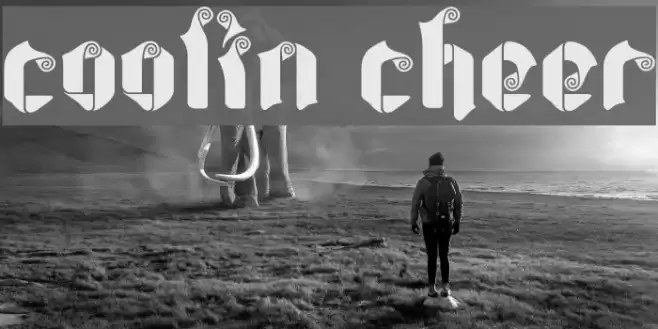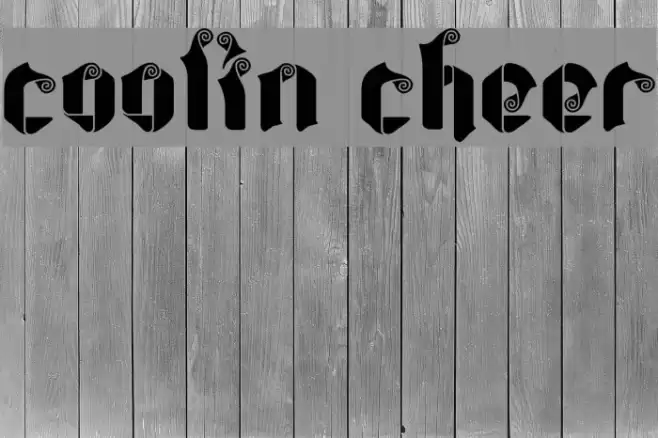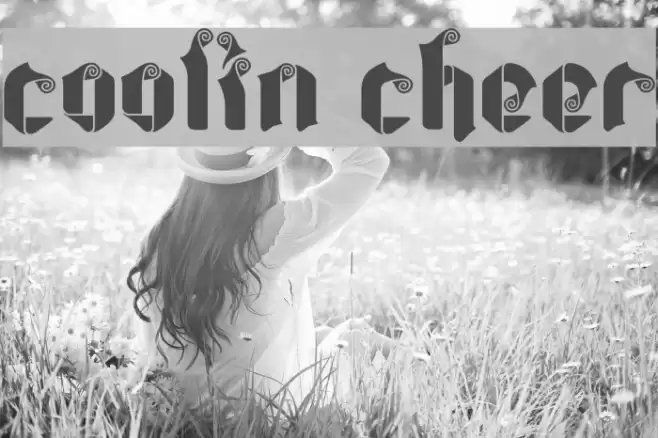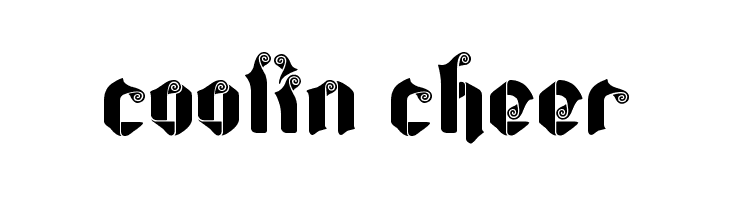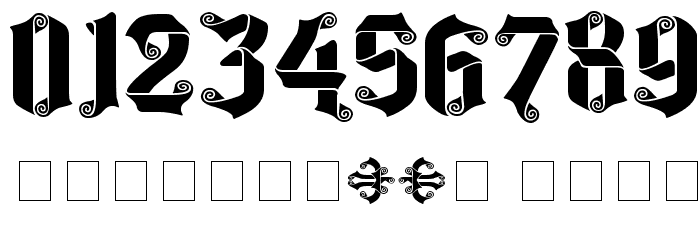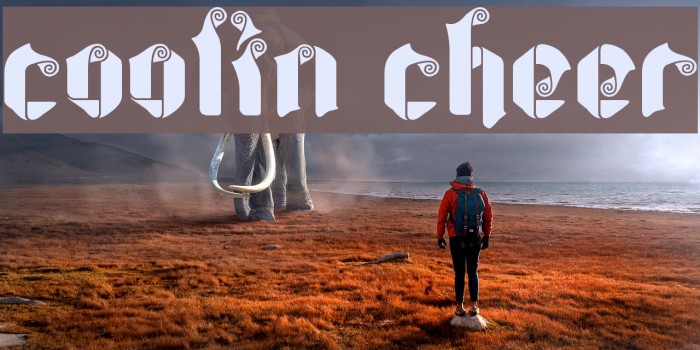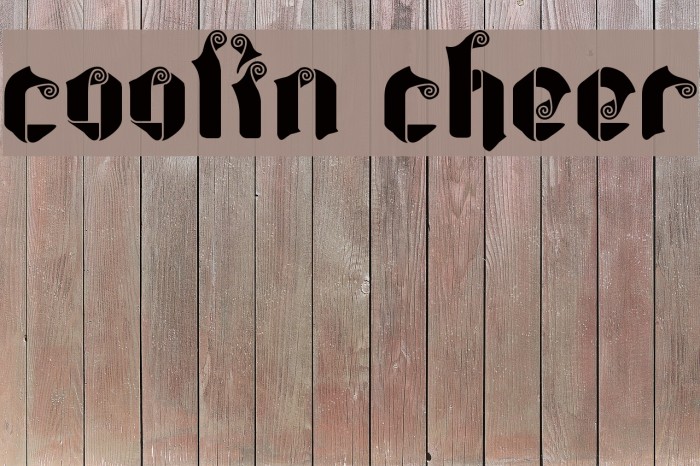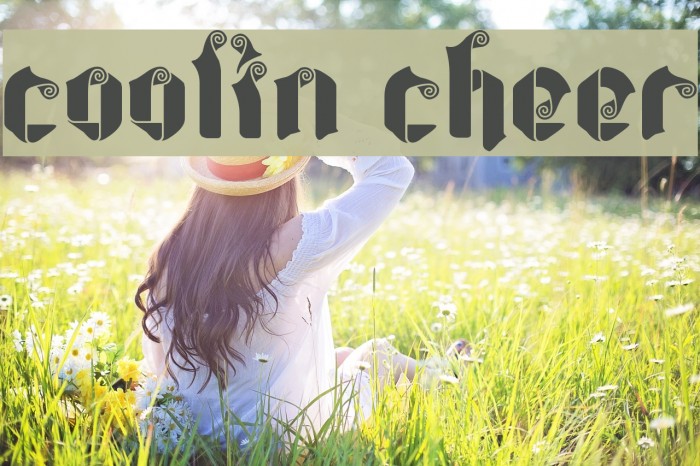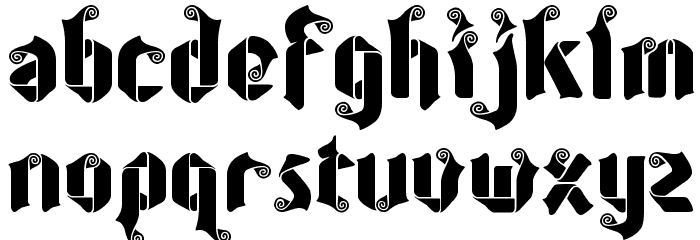
coolin cheer Font
coolin cheer Description
This font features a bold and striking design with intricate decorative elements. Each character is crafted with a distinct blackletter style, incorporating swirling embellishments that add a touch of elegance and complexity. The uppercase letters are particularly prominent, with sharp angles and a strong presence, while the lowercase letters maintain a consistent style with slightly softer curves. The numerals are equally bold, ensuring they stand out in any composition. The special characters are uniquely designed to match the overall aesthetic, making this font ideal for projects that require a dramatic and artistic flair.
A bold blackletter font with intricate decorative swirls from Curly fonts.
- Proposed Projects: Ideal for gothic-themed designs, tattoo art, vintage posters, and branding that requires a dramatic touch.
- Use Case: Logos, Posters, Headlines